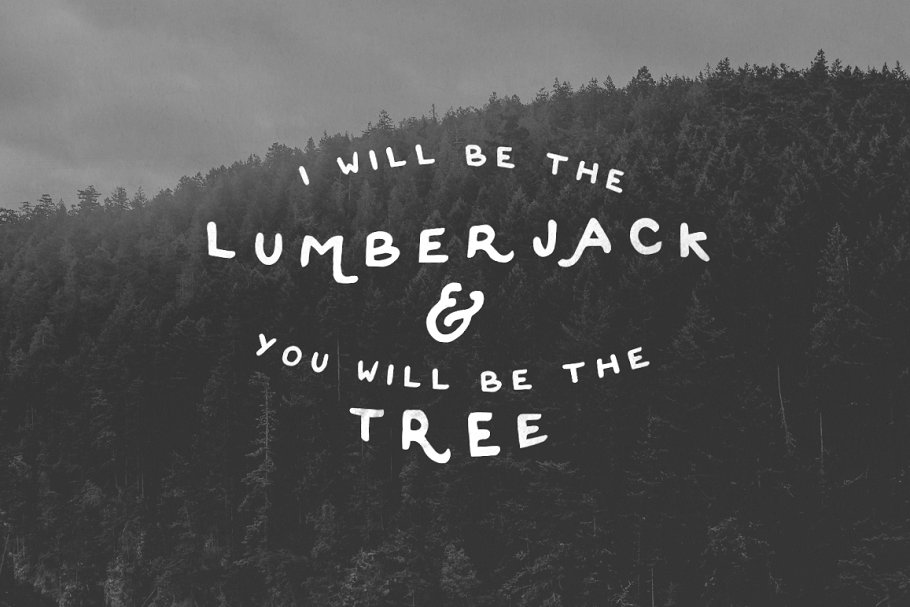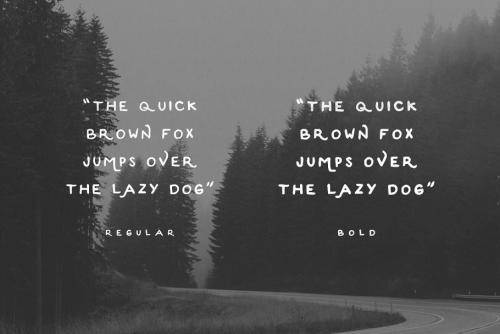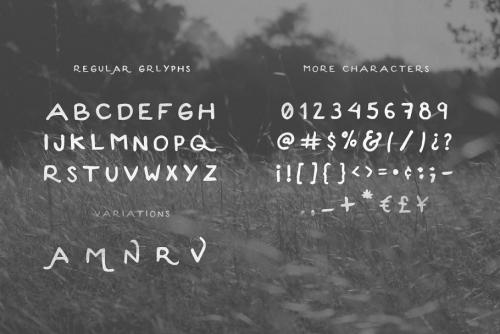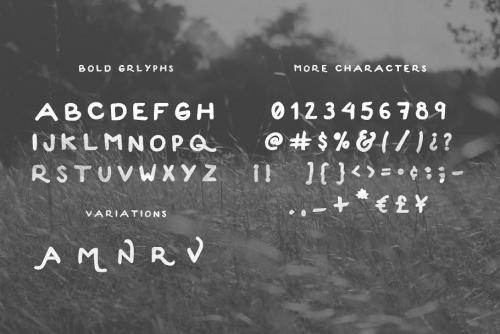
Dakota Font can be one of my favorite font, designed by Noe Araujo. Just think about the logos, quotes and things you can do with this beauty. Cool right? So now I made the font in two weights Regular & Bold.